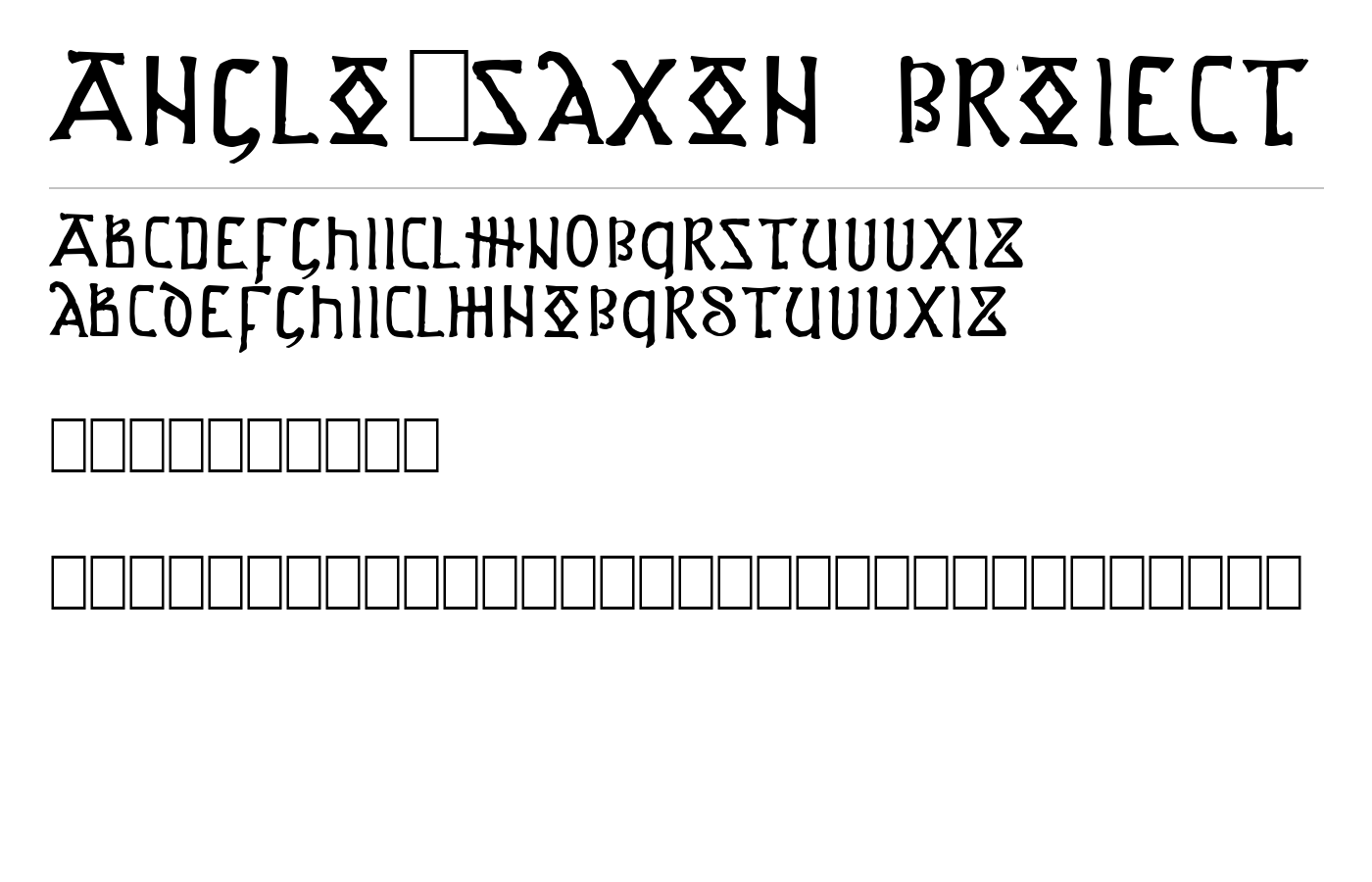
Anglo-Saxon Project is a decorative, serif typeface inspired by ancient Anglo-Saxon script, featuring sharp, angular strokes with irregular, hand-drawn qualities that evoke a historic and tribal feel. Its unique and intricate letterforms make it ideal for themed designs such as medieval or fantasy projects, logos, and displays where a distinctive, antique character is desired.
Anglo-Saxon Project Font
About Anglo-Saxon Project Font